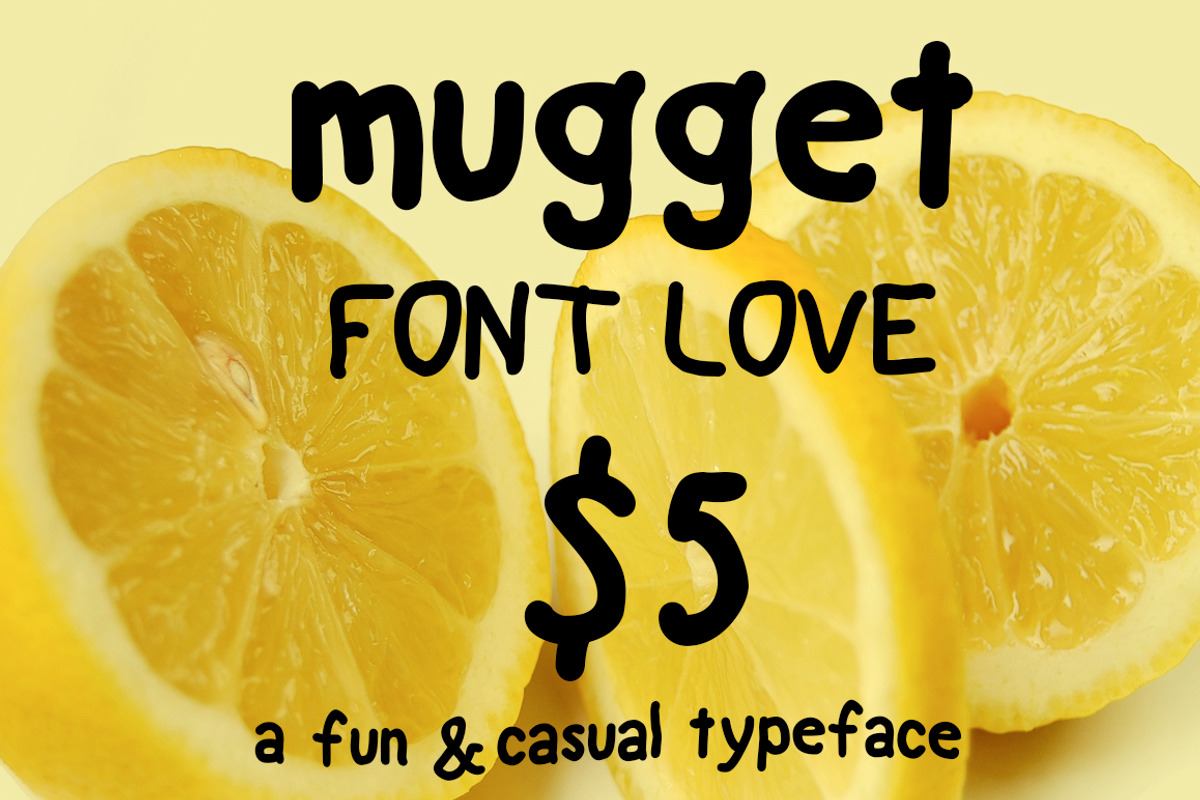
Mugget Font Free Download is a fun and quirky display typeface full of personality and charm. With its playful curves, rounded forms, and whimsical design, Mugget is perfect for children’s books, cartoon titles, product packaging, creative branding, and anything that needs a lighthearted, cheerful touch.
Designed to grab attention while staying approachable, Mugget Font Free Download brings a casual and handmade feel to your typography. It’s especially great for projects targeting younger audiences or for adding a dose of joy and uniqueness to your visuals.